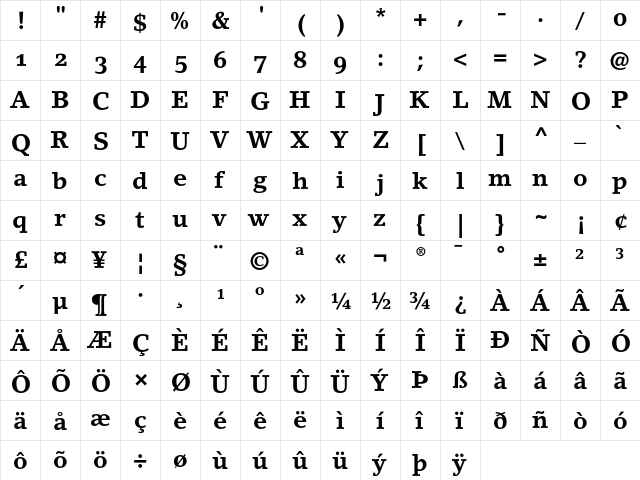
LinoLetter Bold Oldstyle Figures
Design Context for LinoLetter Typeface
LinoLetter brings classic typographic sensibility to the table — its serifs and measured letterforms reflect centuries of print heritage. The heavy weight commands attention and anchors typographic hierarchies.
Pro Tip: Set LinoLetter with slightly loose tracking in headlines to let each letterform's detail read clearly at display sizes.